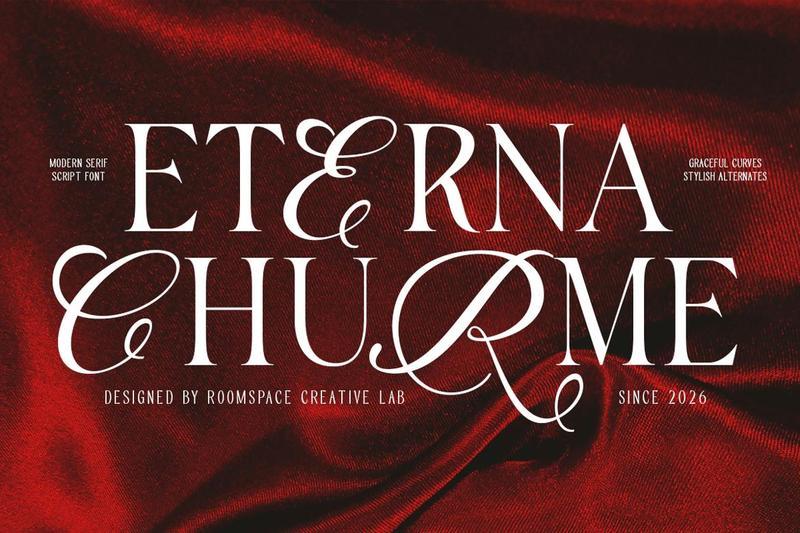
**Eterna Chrume** is a luxury serif script font that combines sophisticated serif construction with graceful calligraphic alternates. Designed to elevate premium visual identities, it delivers exceptional elegance for fashion branding, wedding stationery, cosmetics packaging, luxury logos, and editorial layouts. Its refined contrast and flowing decorative forms create a timeless aesthetic that communicates prestige and sophistication.
**Features**
* Luxury serif script design
* Elegant swashes & alternates
* Uppercase & lowercase
* Multilingual support
* Refined ligatures
* Editorial-inspired letterforms
* Premium typography styling